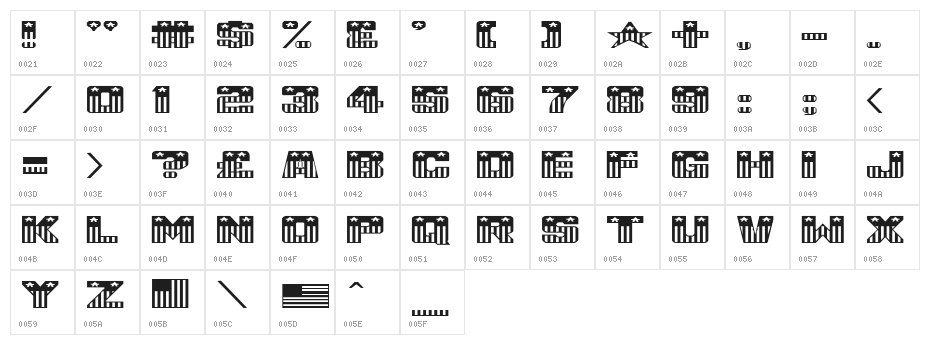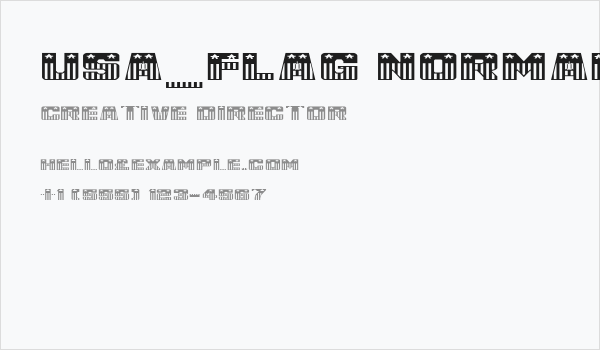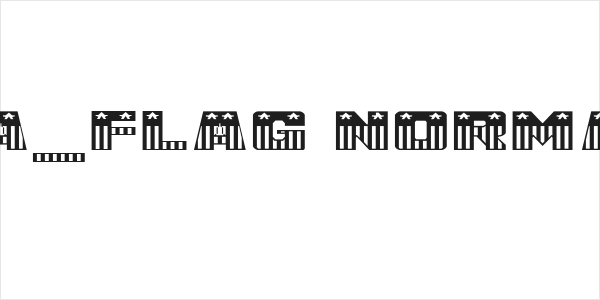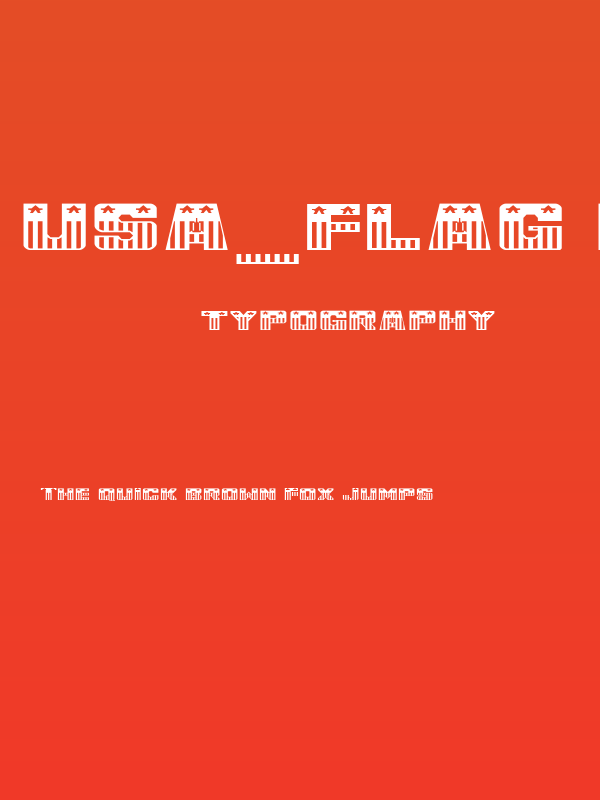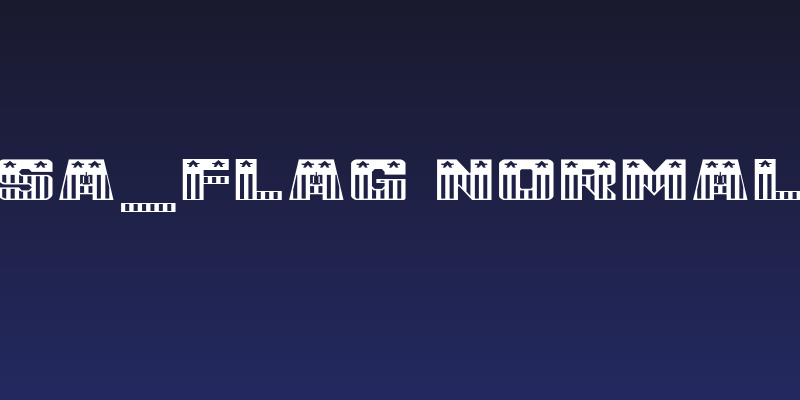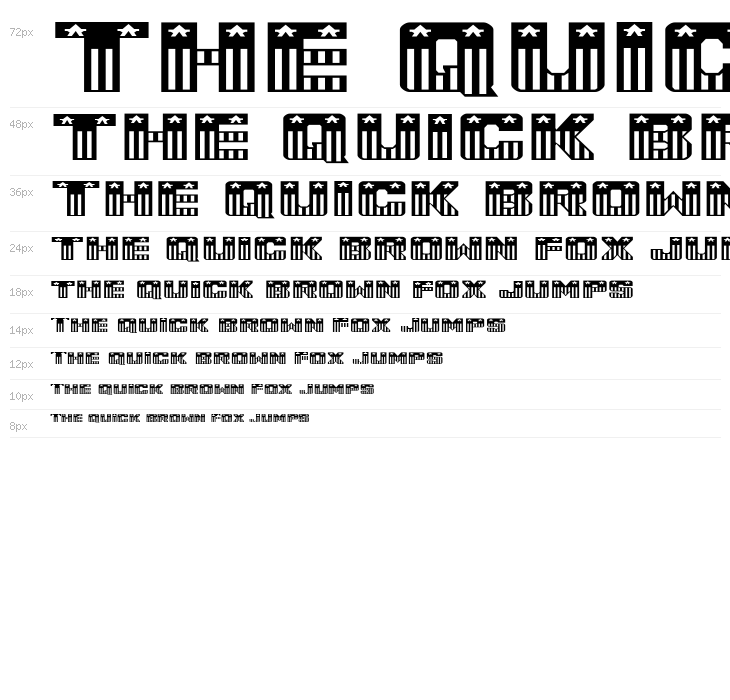
USA_Flag NormalA Font
USA_Flag NormalA Description
This font features a bold and decorative style, incorporating elements of the American flag into each character. The letters are filled with stars and stripes, giving them a patriotic and festive appearance. The design is highly detailed, with each character having a unique combination of these elements, making it stand out for thematic projects. The font is uppercase only, with a consistent width and bold weight, making it suitable for impactful headlines and designs that require a strong visual presence.
Proposed ProjectsIdeal for patriotic-themed posters, event banners, holiday cards, and merchandise designs.